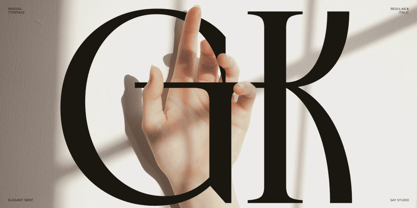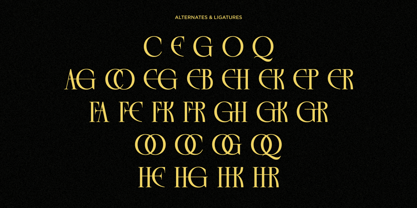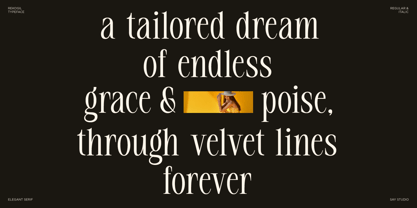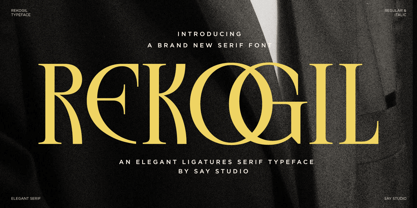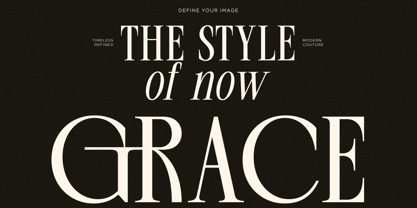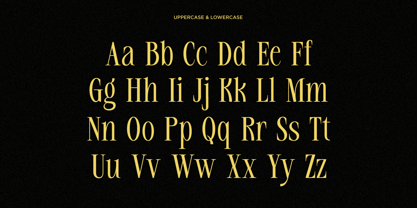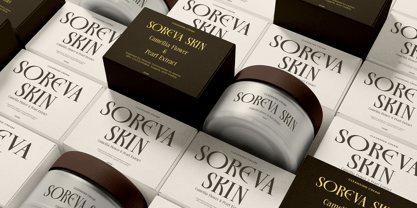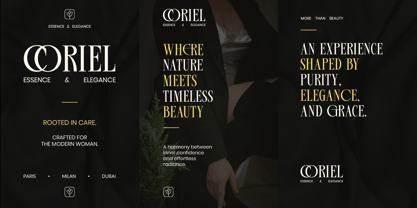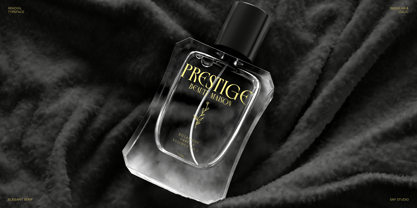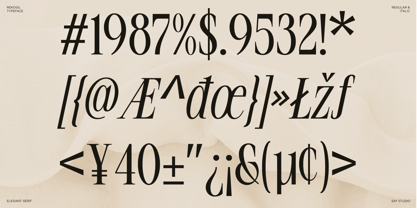
Rekogil
La famille de polices Rekogil a été conçue par Mussyayin et publiée par Say Studio. Rekogil contient 2 styles et options de package familial. En savoir plus sur cette famille
Rekogil is a luxurious serif typeface designed to capture the essence of timeless elegance and contemporary sophistication. Featuring refined high-contrast letterforms, graceful proportions, and distinctive ligatures, this font creates a striking visual presence that instantly elevates branding and editorial projects. Every curve and detail has been carefully crafted to deliver a premium aesthetic suitable for modern luxury brands.
Inspired by fashion editorials, beauty campaigns, perfume packaging, and high-end visual identities, Rekogil combines classic serif beauty with stylish ligature alternatives. The font includes uppercase and lowercase characters, multilingual support, elegant alternates, and unique ligatures that allow designers to create memorable logos, sophisticated headlines, and exclusive brand presentations with ease.
Rekogil perfect for luxury logos, cosmetic packaging, wedding stationery, magazines, jewelry branding, boutique businesses, or premium marketing materials, Rekogil delivers a refined and fashionable appearance. Its elegant personality and versatile design make it an excellent choice for designers seeking a modern serif typeface that communicates prestige, beauty, and professionalism.
• Regular and Italic Style
• Stylistic Ligatures
• Uppercase and Lowercase
• Number, Symbol and Punctuiation
• Multilingual Support